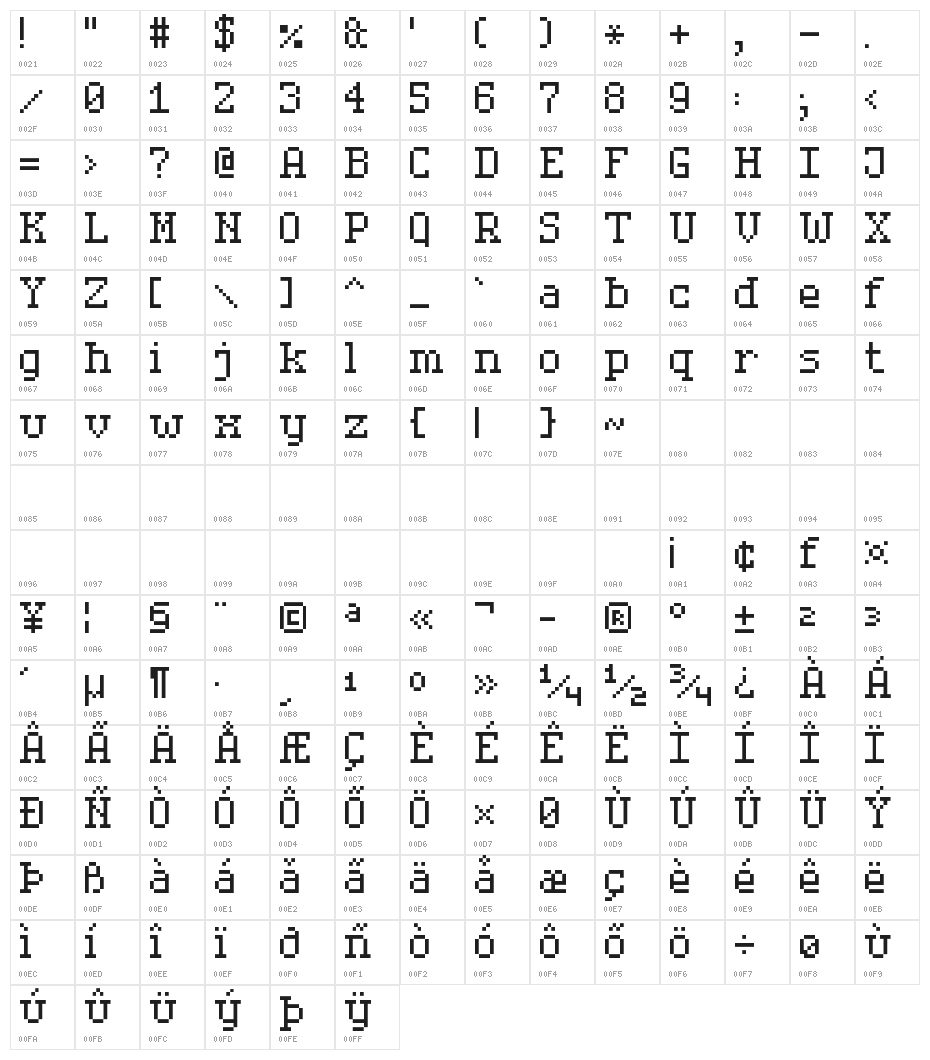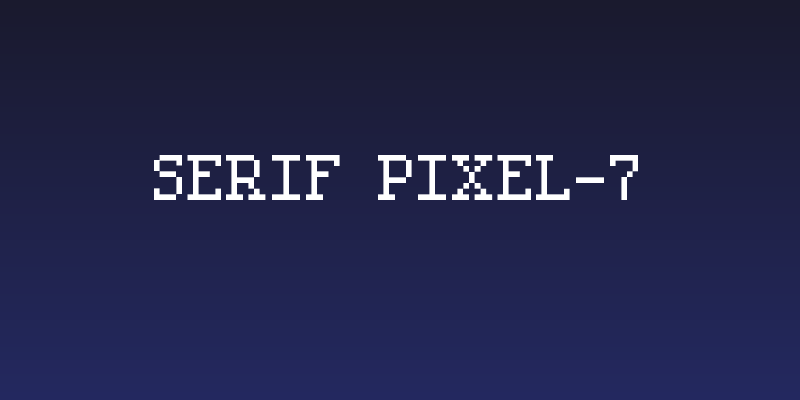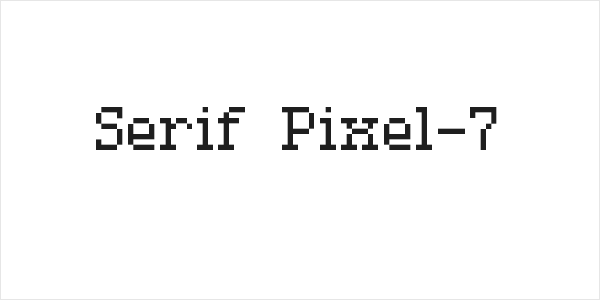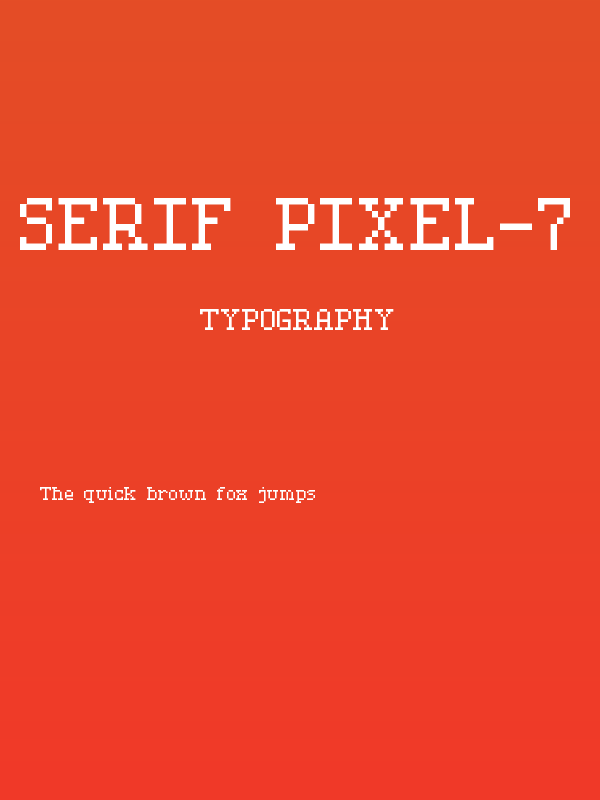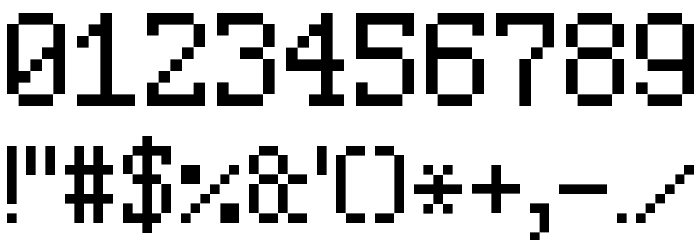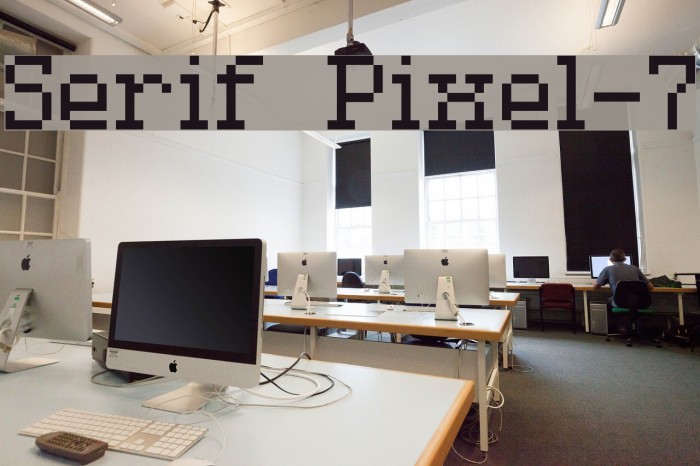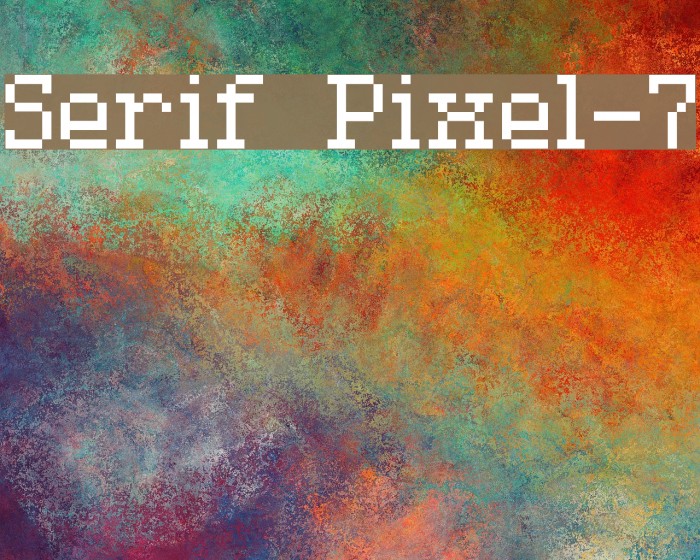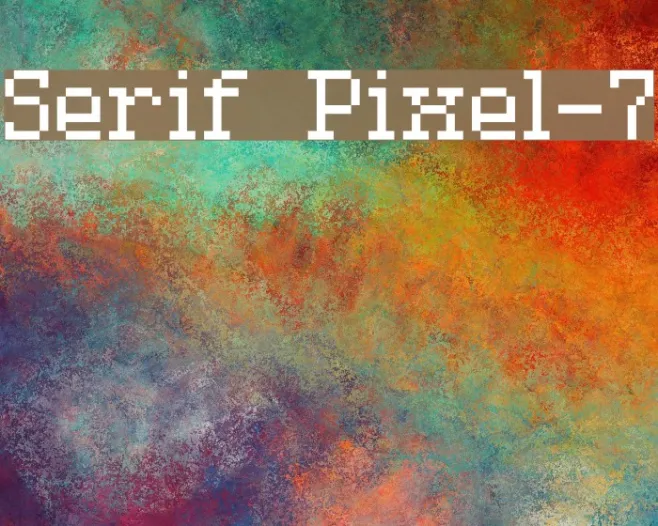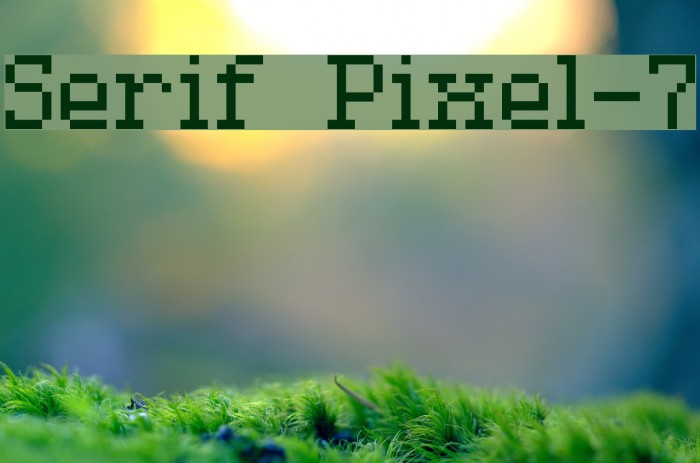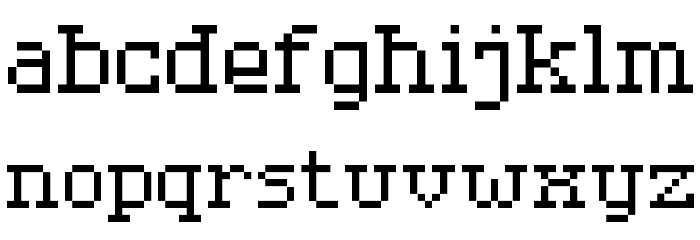
Serif Pixel-7 Font
Serif Pixel-7 Description
This font features a pixelated design with distinct, blocky serifs that give it a retro, digital appearance. The characters are uniformly structured, maintaining a consistent pixel grid that enhances readability while evoking a nostalgic feel reminiscent of early computer graphics. The uppercase and lowercase letters are clearly defined, with the uppercase being slightly taller and more prominent. Numbers and special characters follow the same pixelated style, ensuring a cohesive look across all text elements. This font's unique style makes it stand out, offering a blend of vintage charm and modern digital aesthetics.
| Use Case | Logos, Headlines, Digital Art |
| Proposed Projects | Ideal for retro-themed designs, video game graphics, digital art projects, and any creative work that seeks to capture a vintage computer aesthetic. |